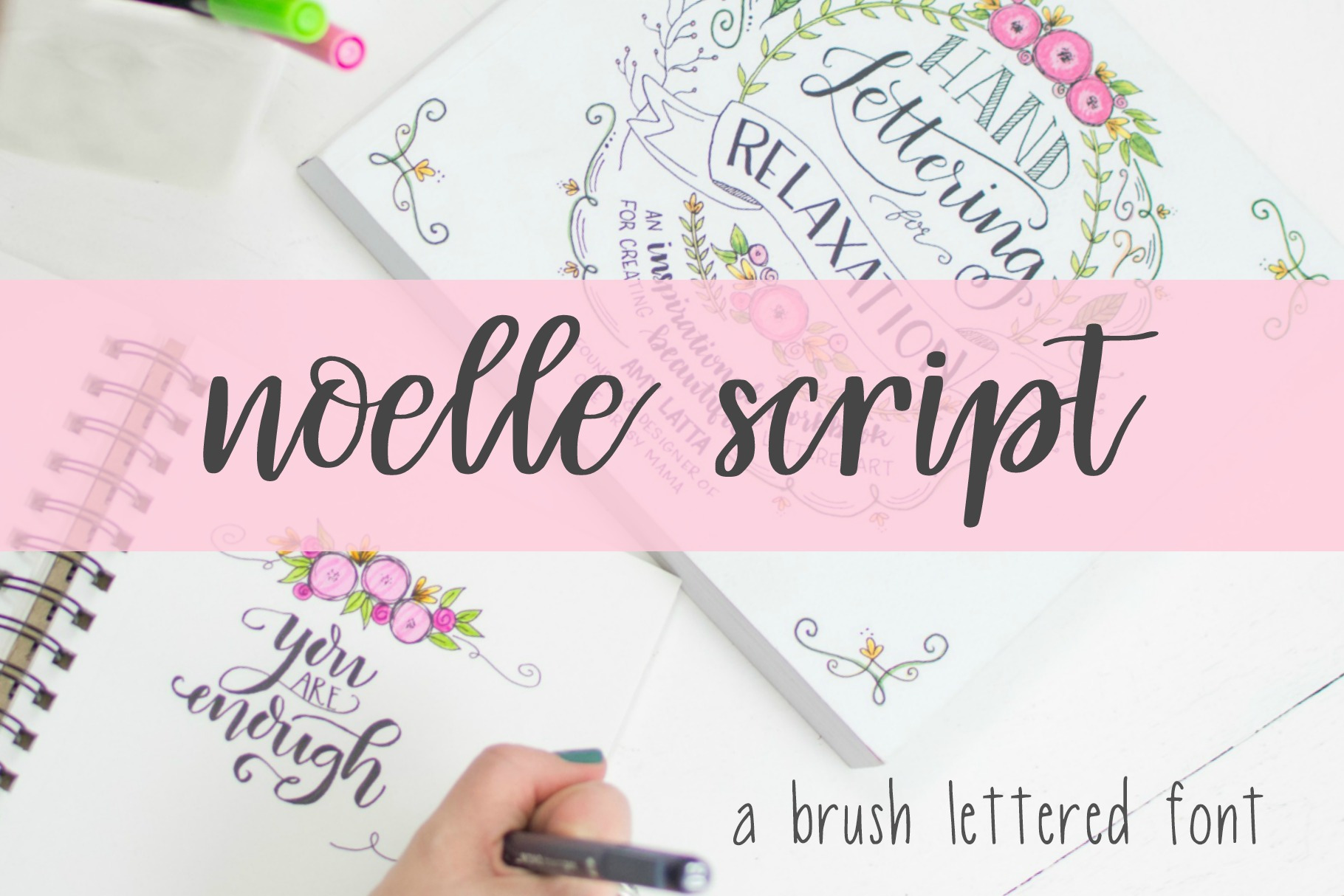
Noelle Script Brush Lettered Font
Give your projects an authentic hand lettered feel with Noelle Script, an elegant brush lettered font. Hand drawn by artist Amy Latta, author of Hand Lettering for Relaxation {2017} and Express Yourself {2018}.